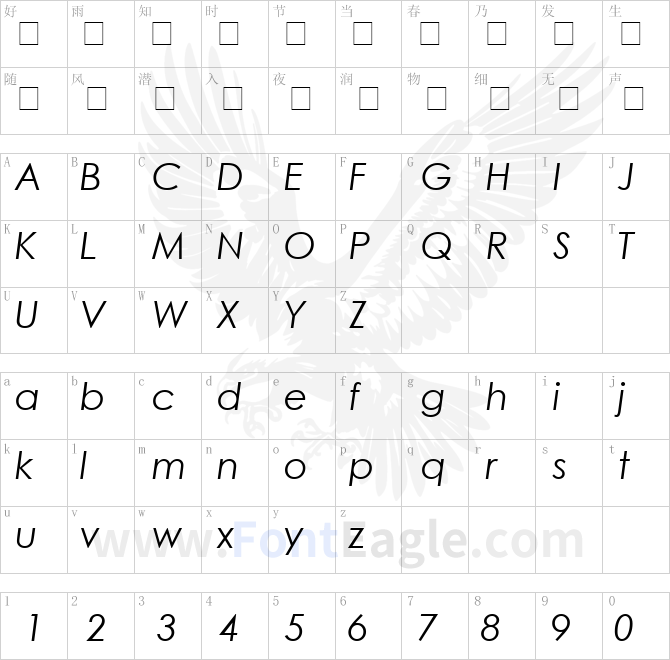
- Font name:Century Gothic
- Font Subfamily ID:Century Gothic Italic : 1991
- Font Full Name:Century Gothic Italique
- Font Version:Version 1.50
- Postscript:CenturyGothic-Italic